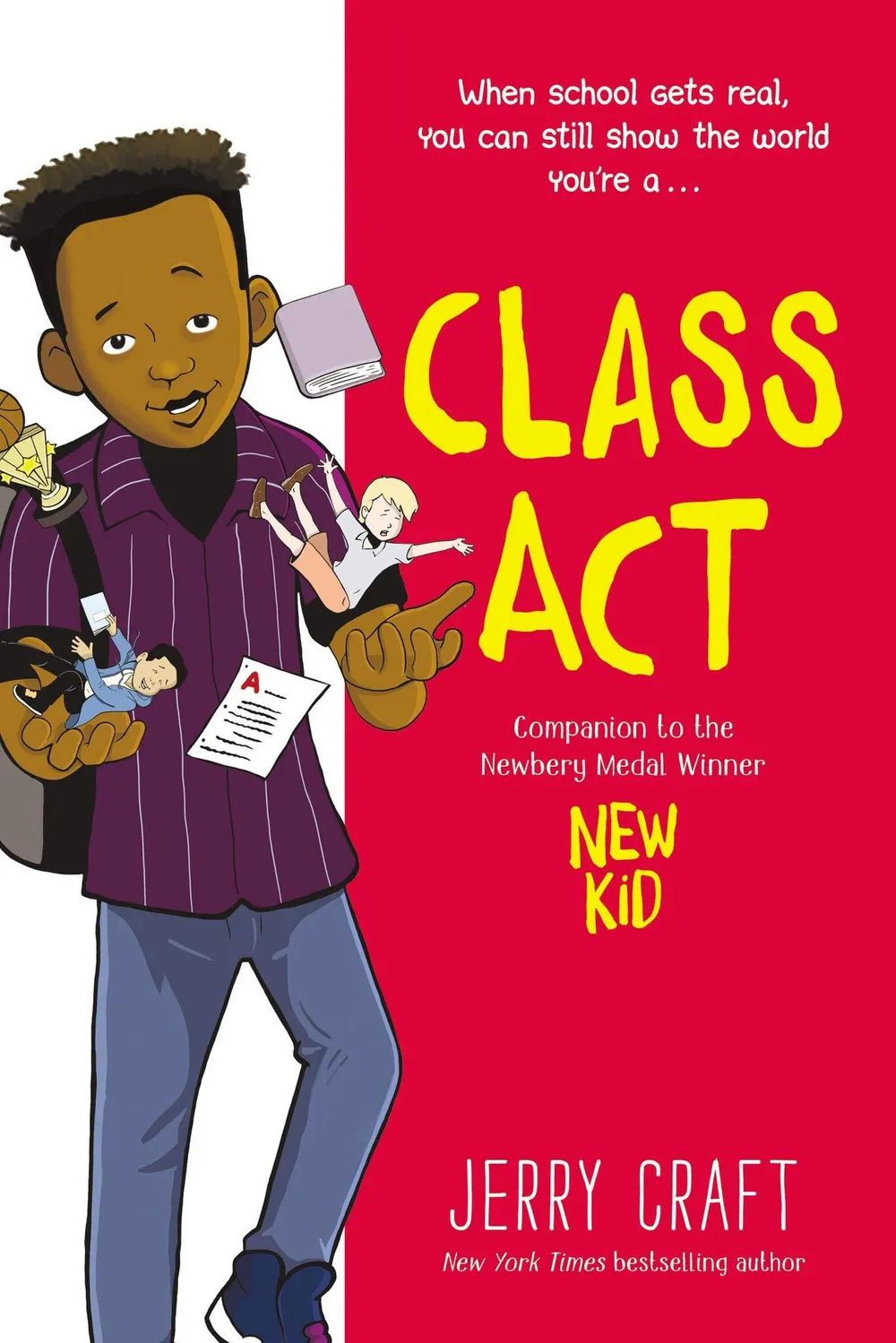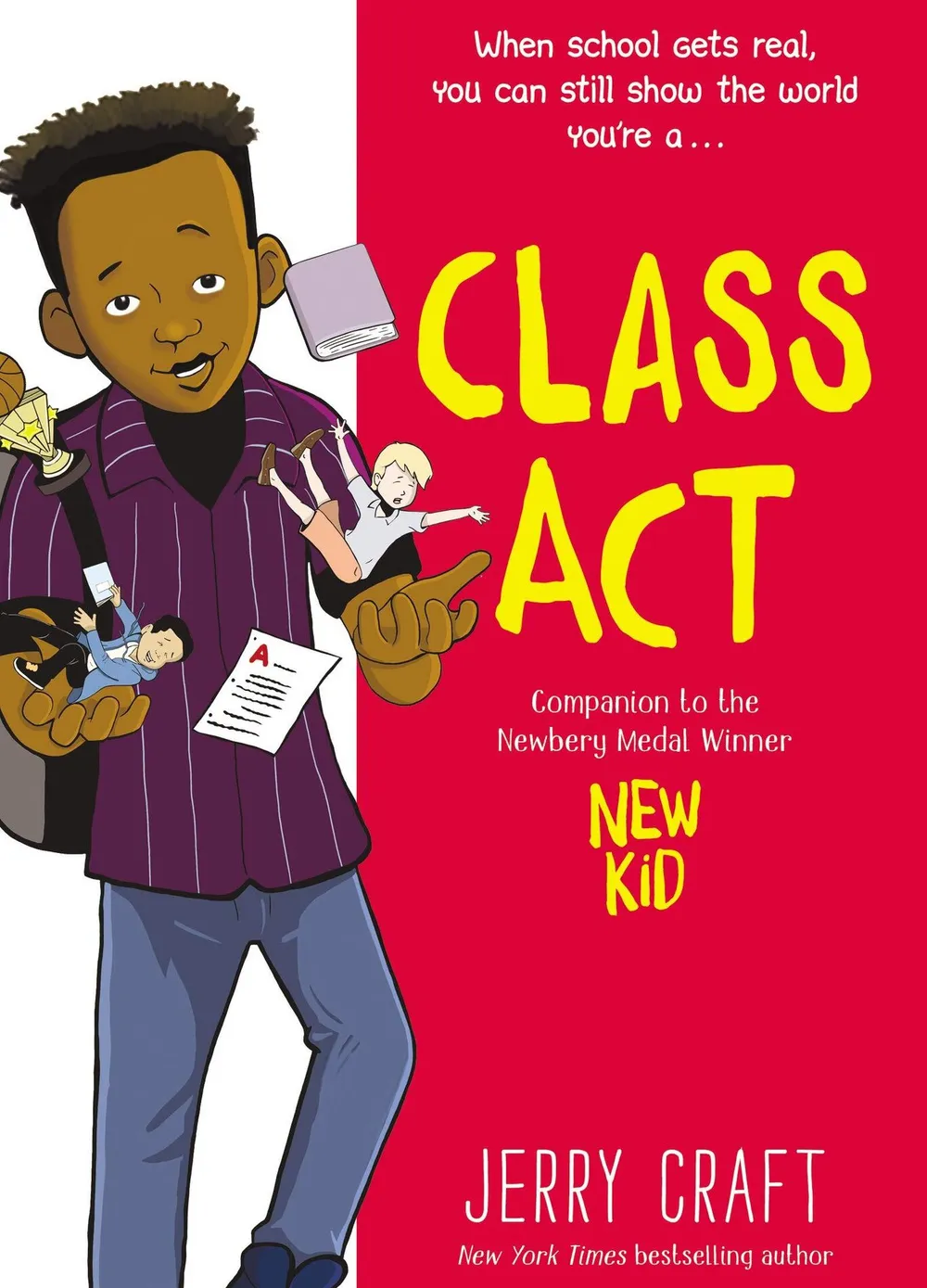
Fonts in Use: Daft Brush
Class Act
Daft Brush in use on the cover of Class Act, a 2020 graphic novel by Jerry Craft, published by Quill Tree Books/HarperAlley, imprints of HarperCollins. It is a sequel to New Kid.
Daft Brush font has many alternates, for this nice hand-lettered feel.